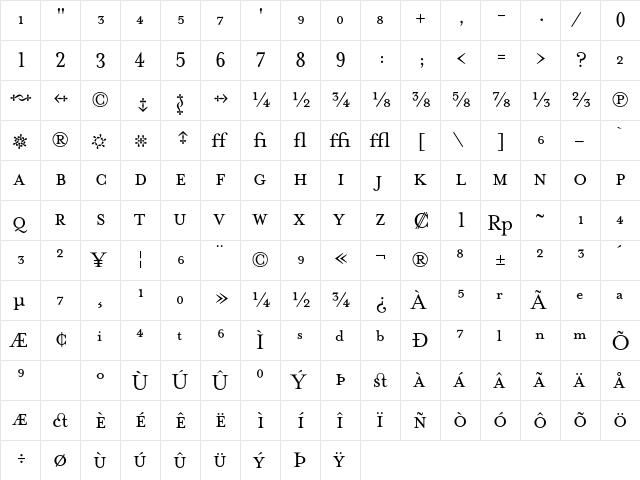
MrsEavesFractions Regular
Design Context for MrsEavesFractions Typeface
MrsEavesFractions offers clean, dependable letterforms without strong stylistic allegiance, making it a practical choice for designers who need flexibility.